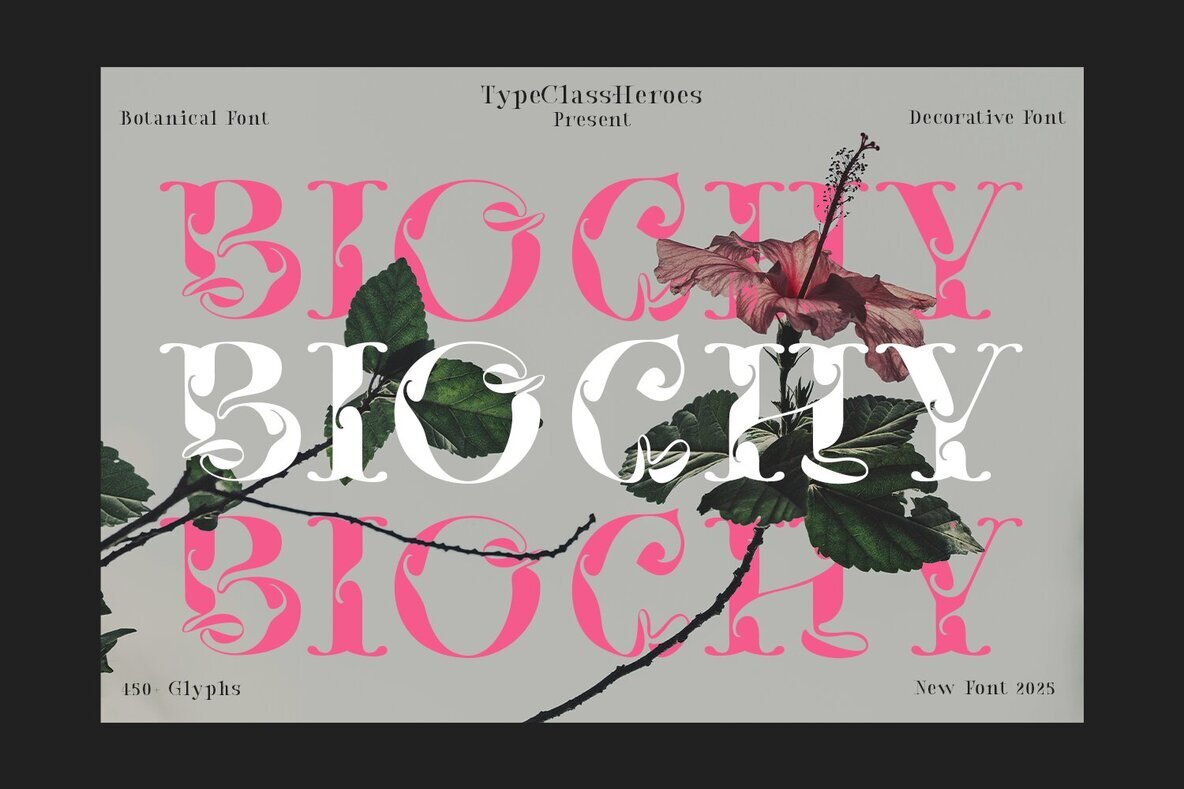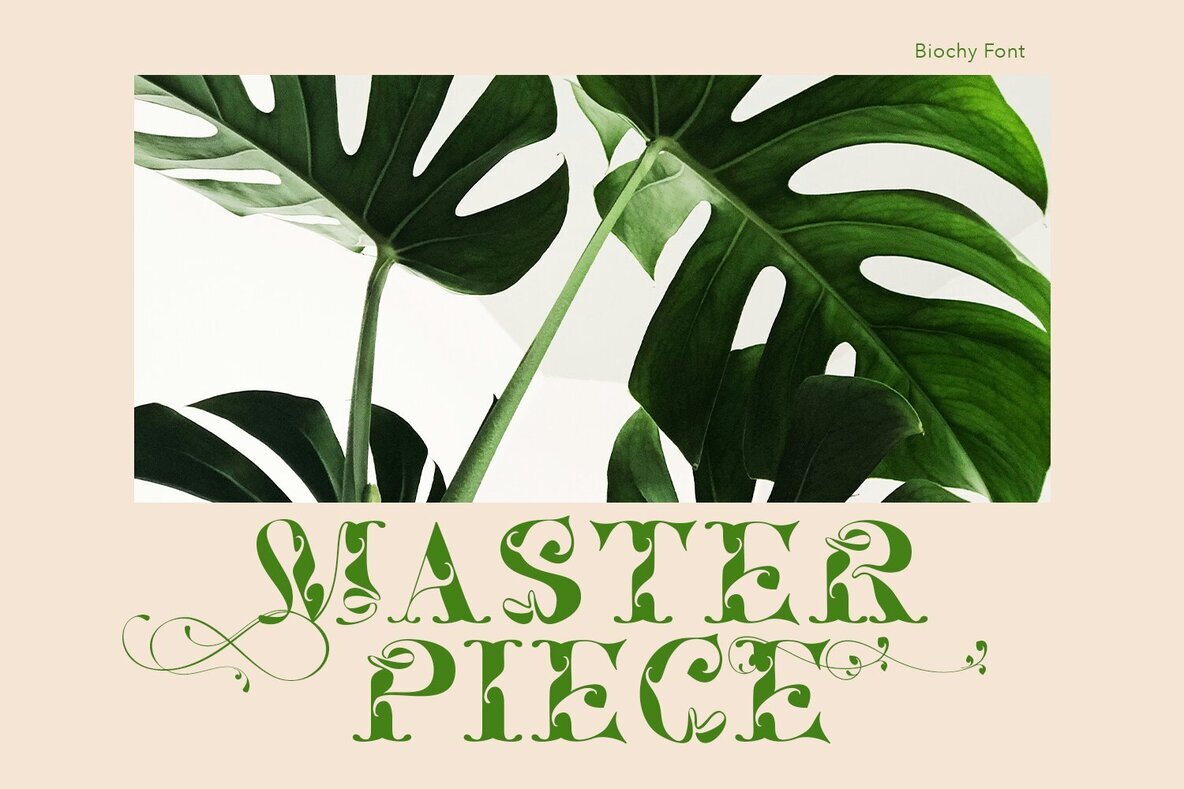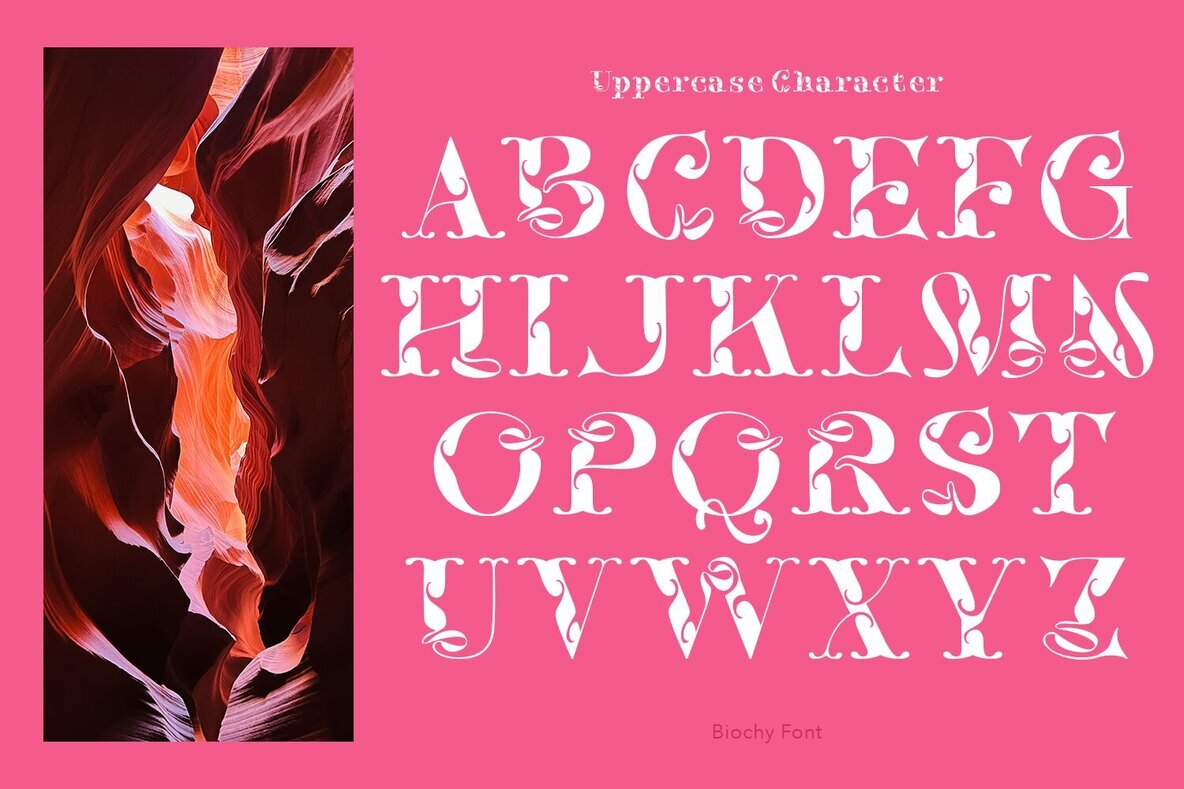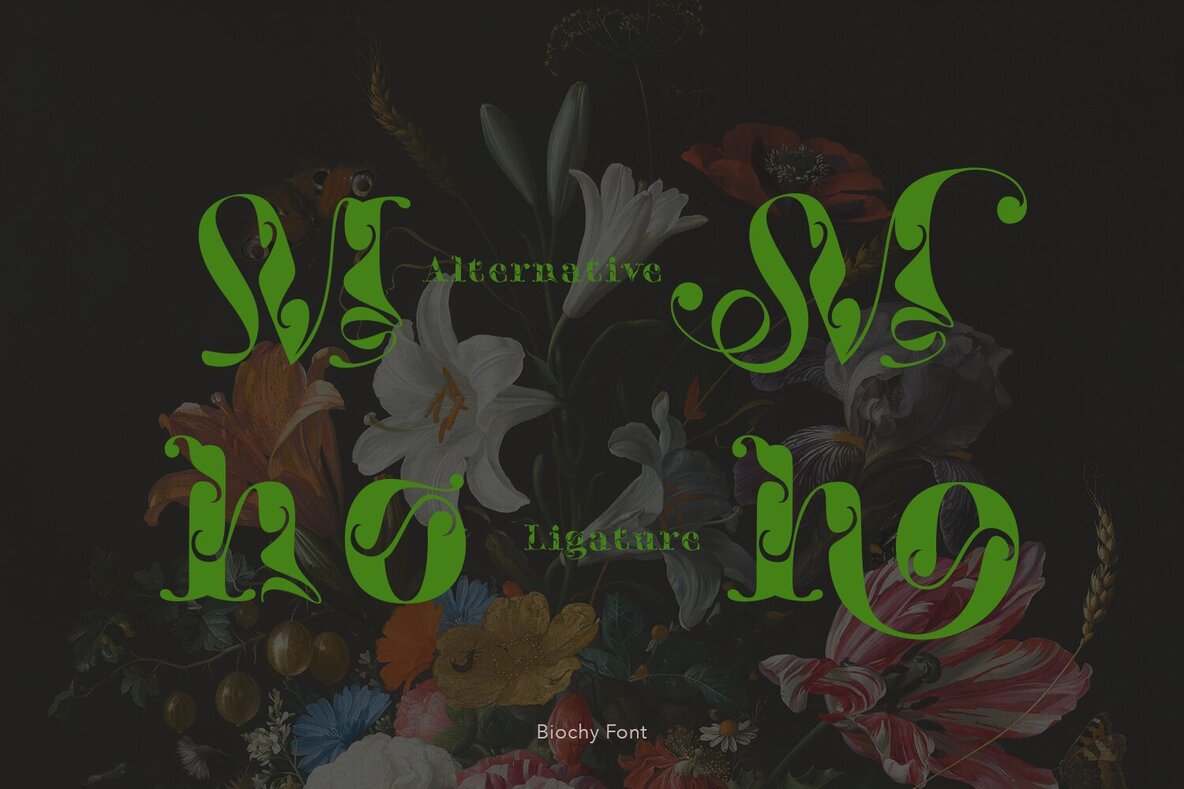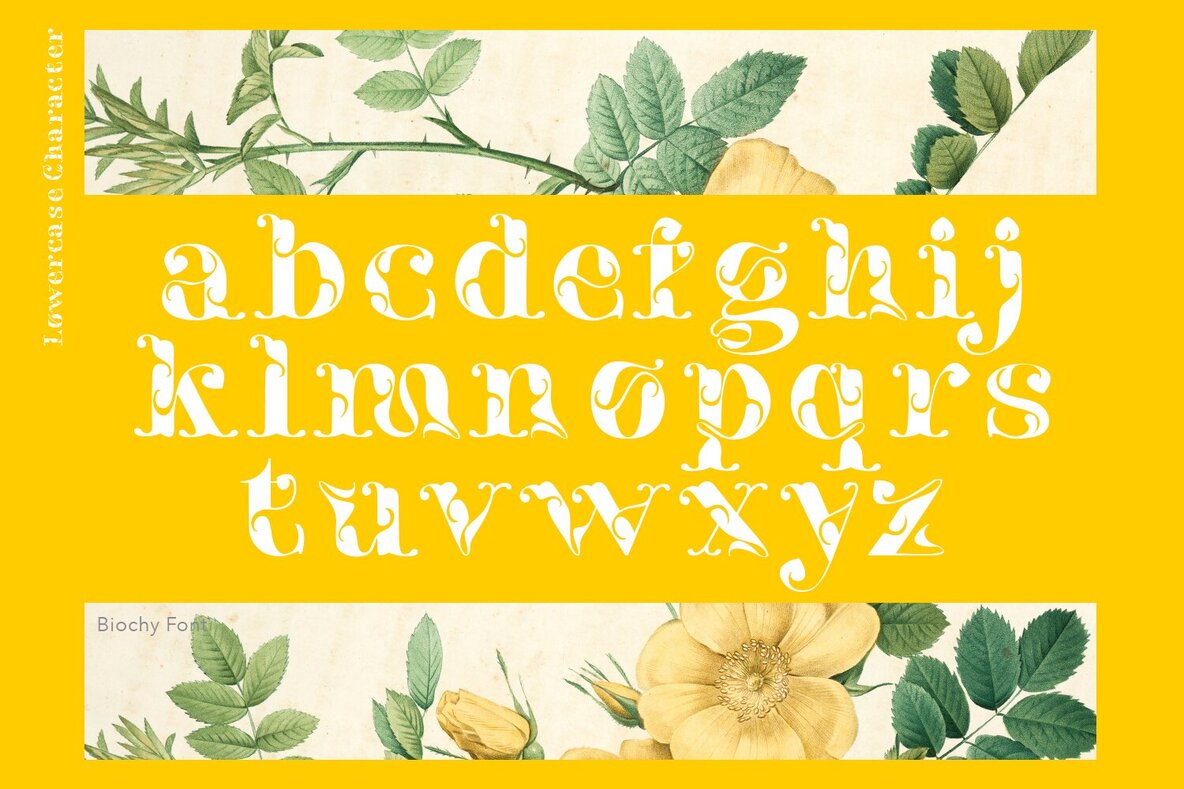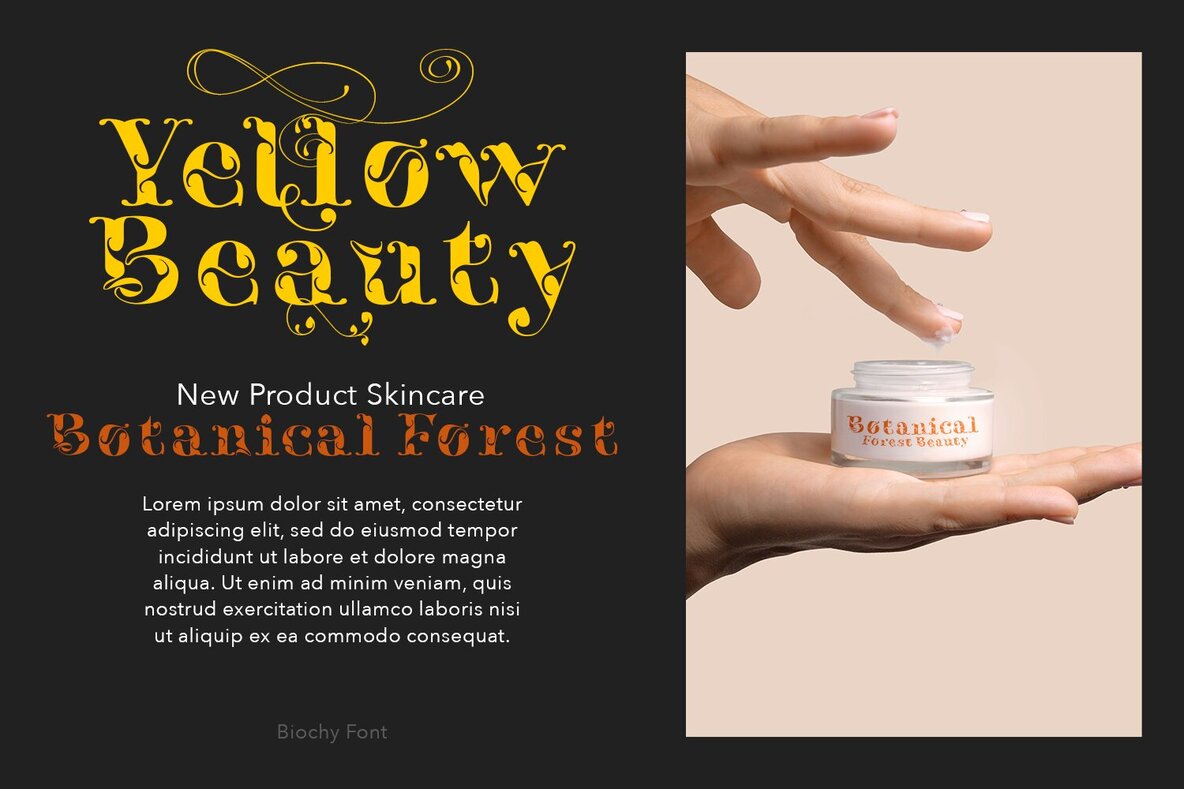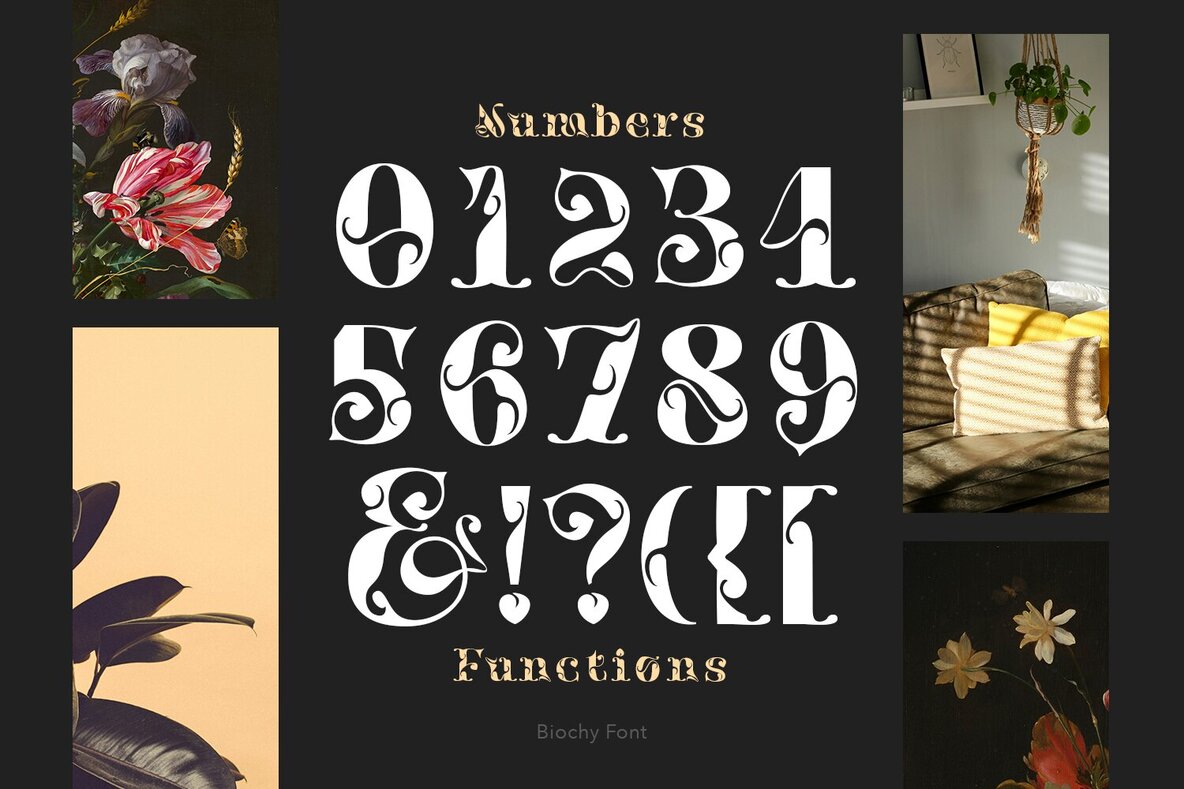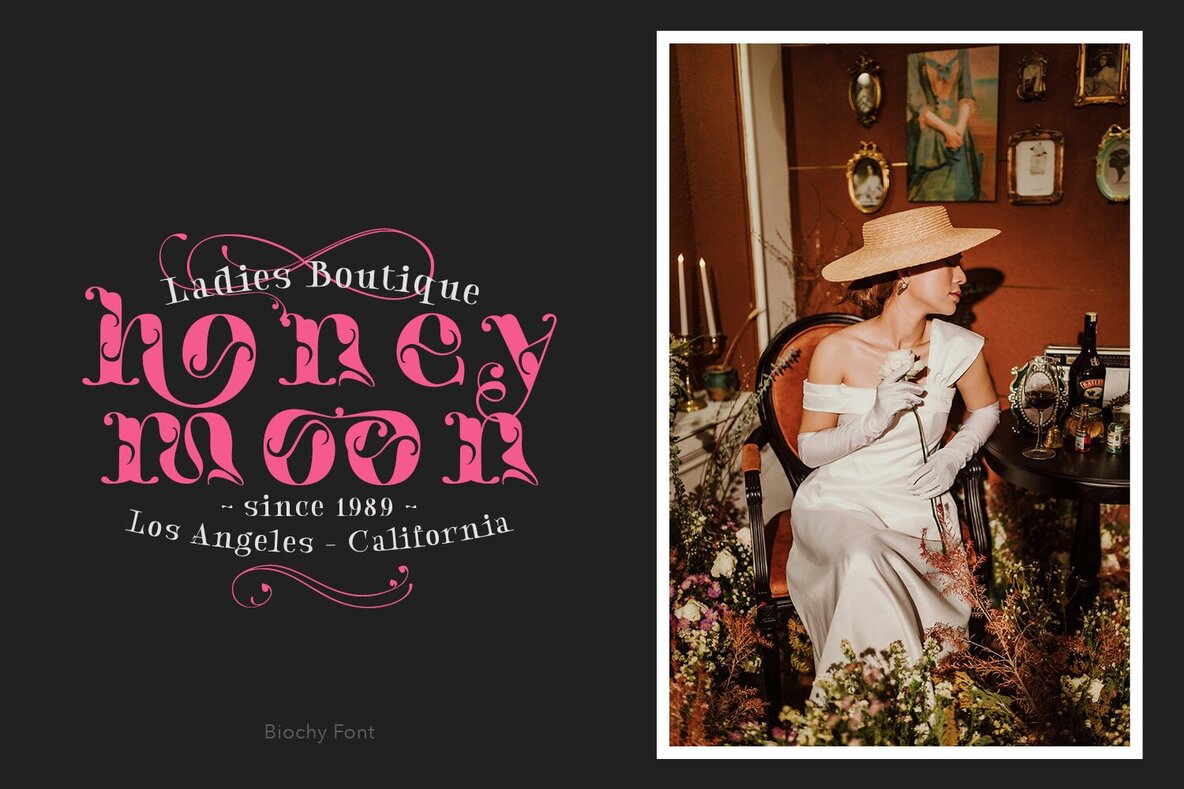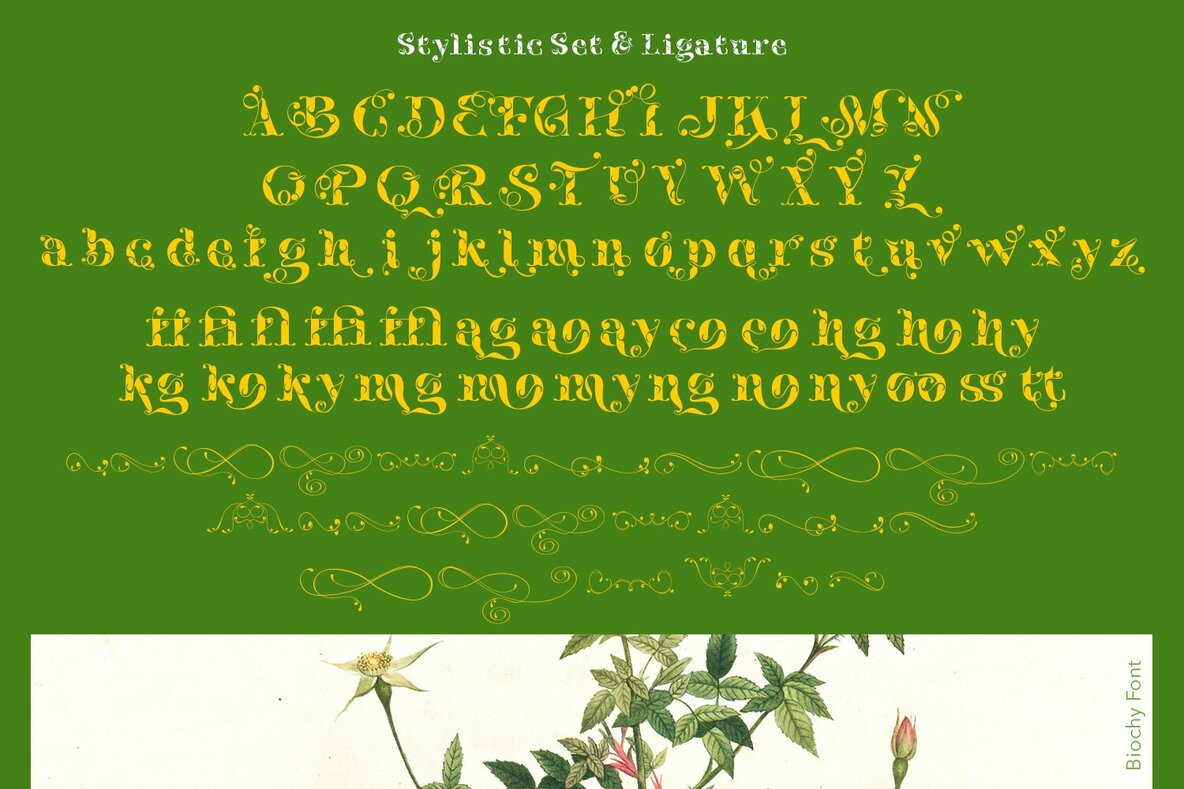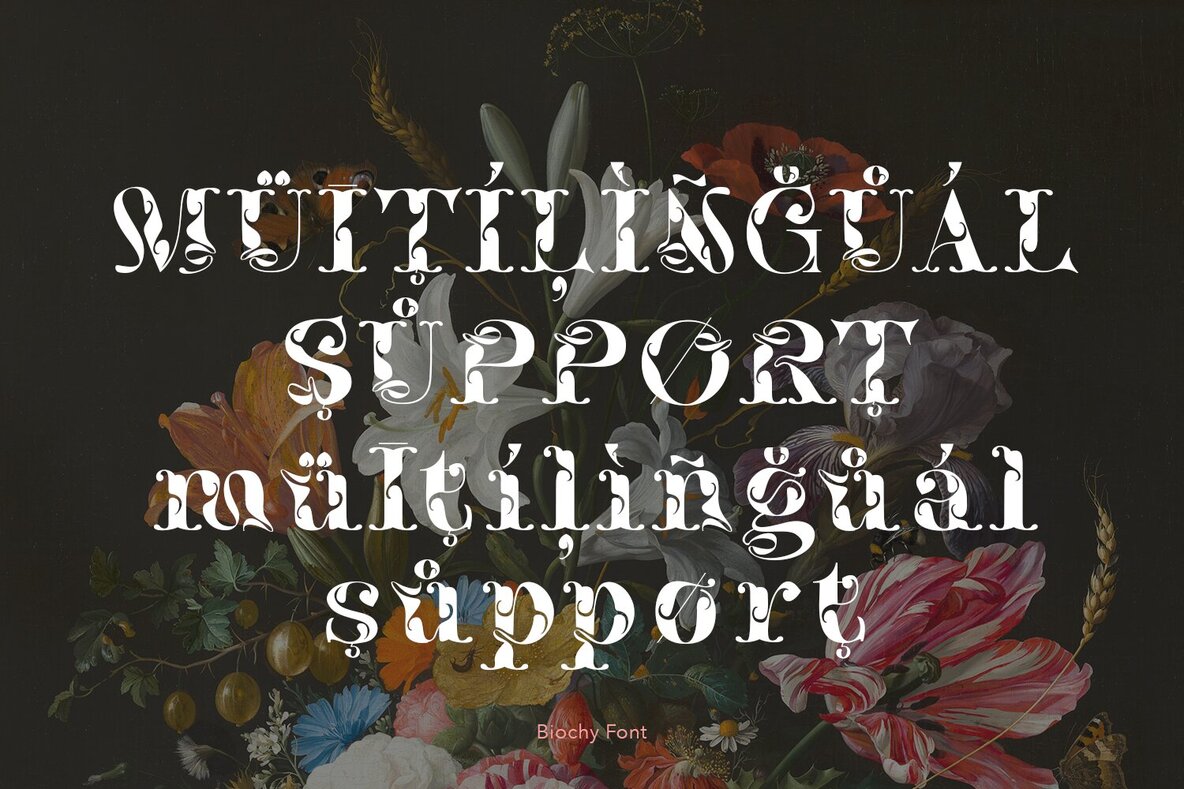
Biochy Font
Step into a world of elegance with Biochy, the serif typeface that marries natural botanical inspiration with timeless design. Each letter features trending ligatures and special characters that infuse a harmonious blend of classic and modern simplicity into every project. Ideal for a wide range of applications, Biochy will add a sophisticated touch to your headers, titles, book covers, invitations, and any design work needing a luxurious, classic flair.Biochy: A Luxurious Botanical Serif Typeface